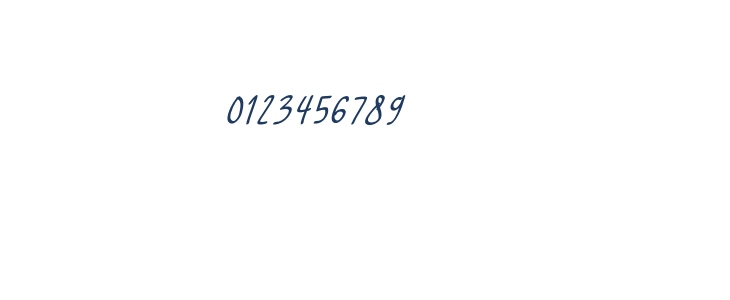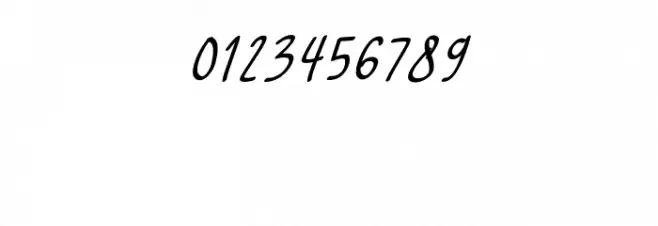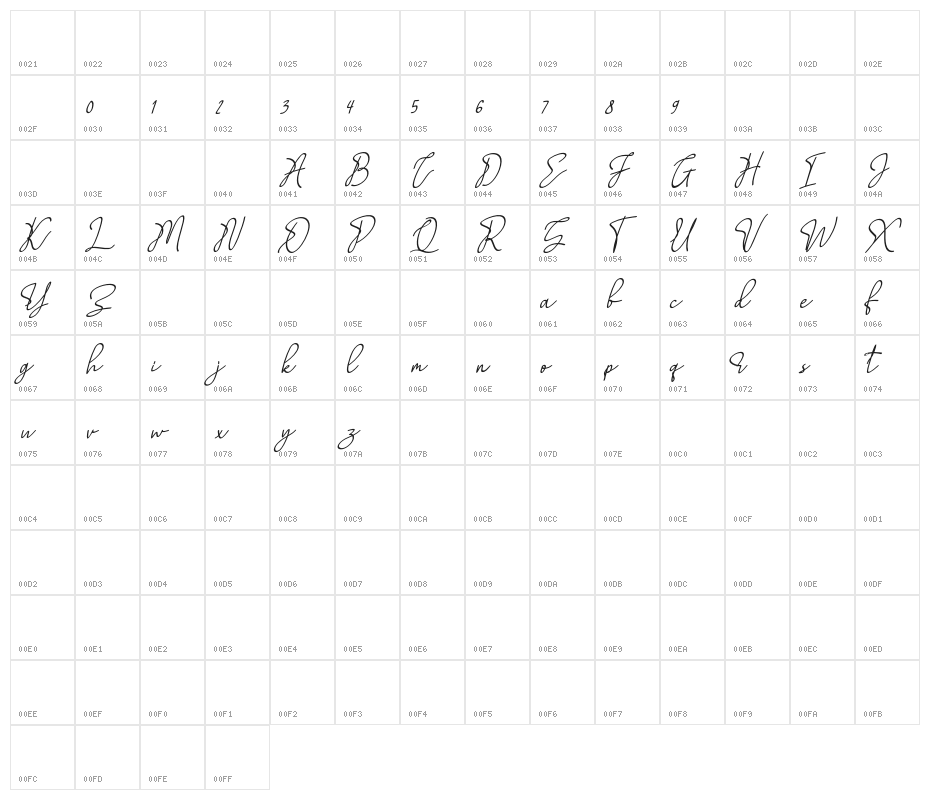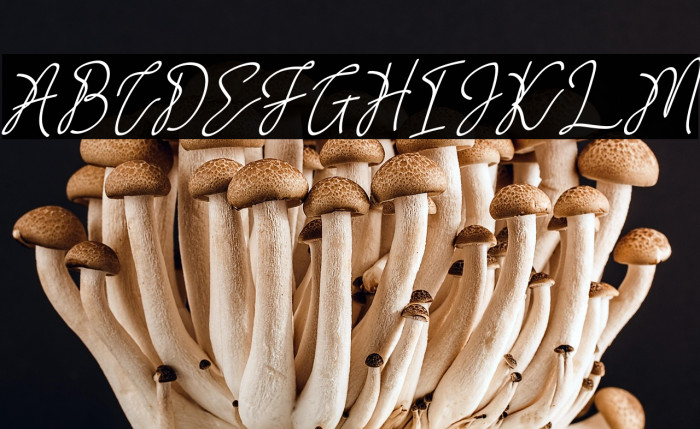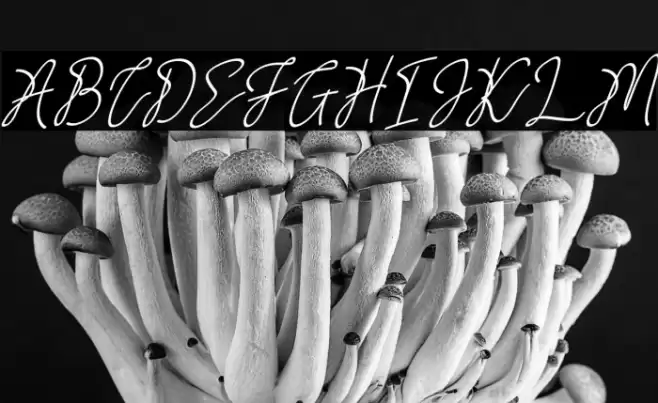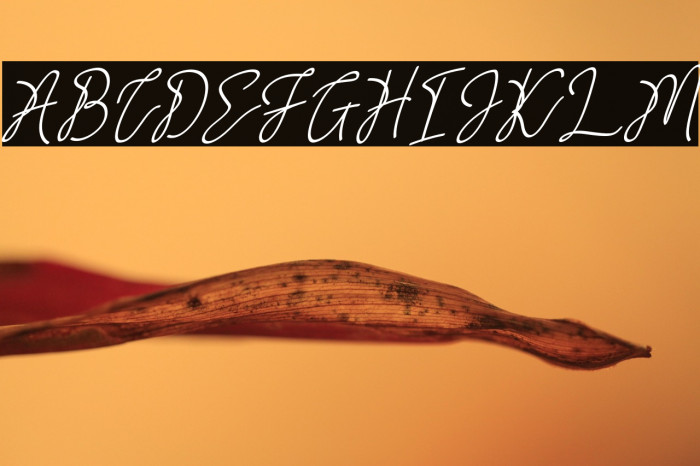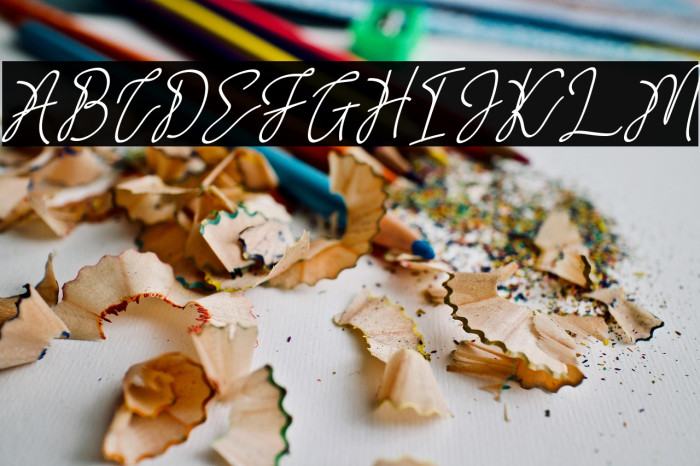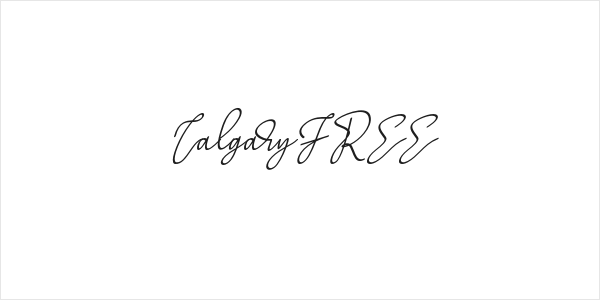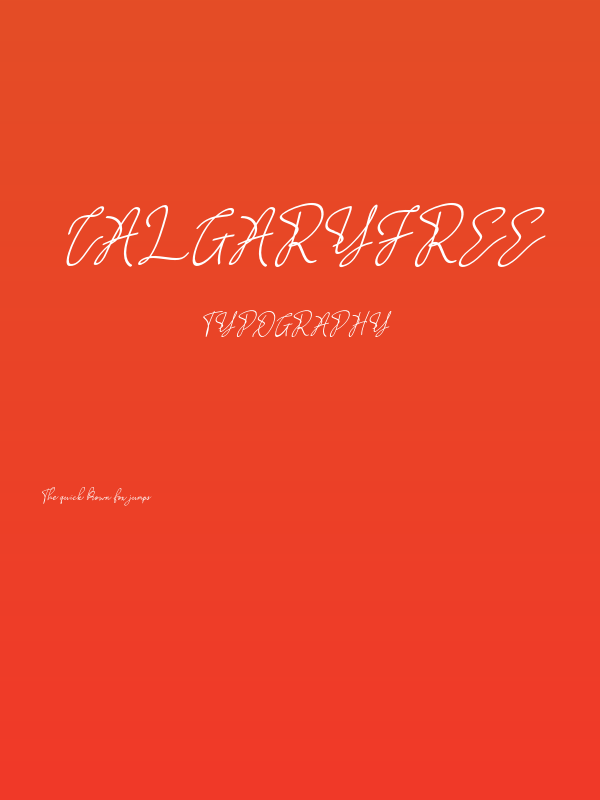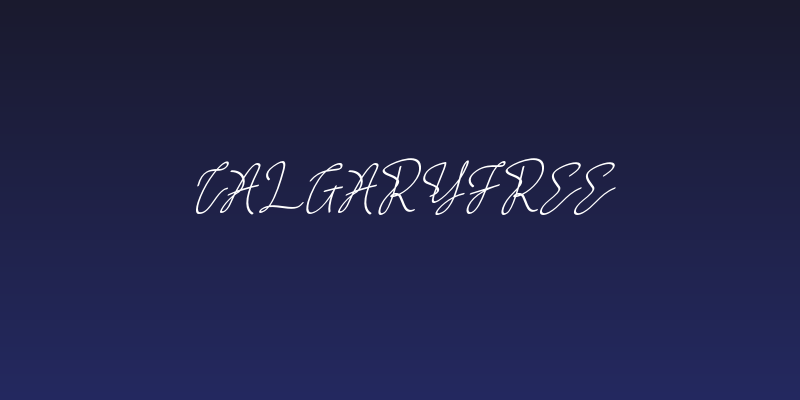
CalgaryFREE Font
CalgaryFREE Description
This font features an elegant and flowing script style, characterized by its smooth, cursive letterforms. The uppercase letters are tall and graceful, with sweeping curves and delicate loops that give a sense of fluidity and movement. The lowercase letters maintain a consistent flow, with connected strokes that enhance the handwritten appearance. The numerals are clear and legible, maintaining the script's overall aesthetic. This font exudes a sense of sophistication and charm, making it suitable for formal invitations, branding, and decorative purposes. The design balances readability with artistic flair, ensuring it stands out while remaining functional.
| Overall Style | Elegant, Sophisticated |
| Use Case | Headlines, Invitations, Branding |
| Proposed Projects | Ideal for wedding invitations, elegant branding, greeting cards, and decorative signage. |